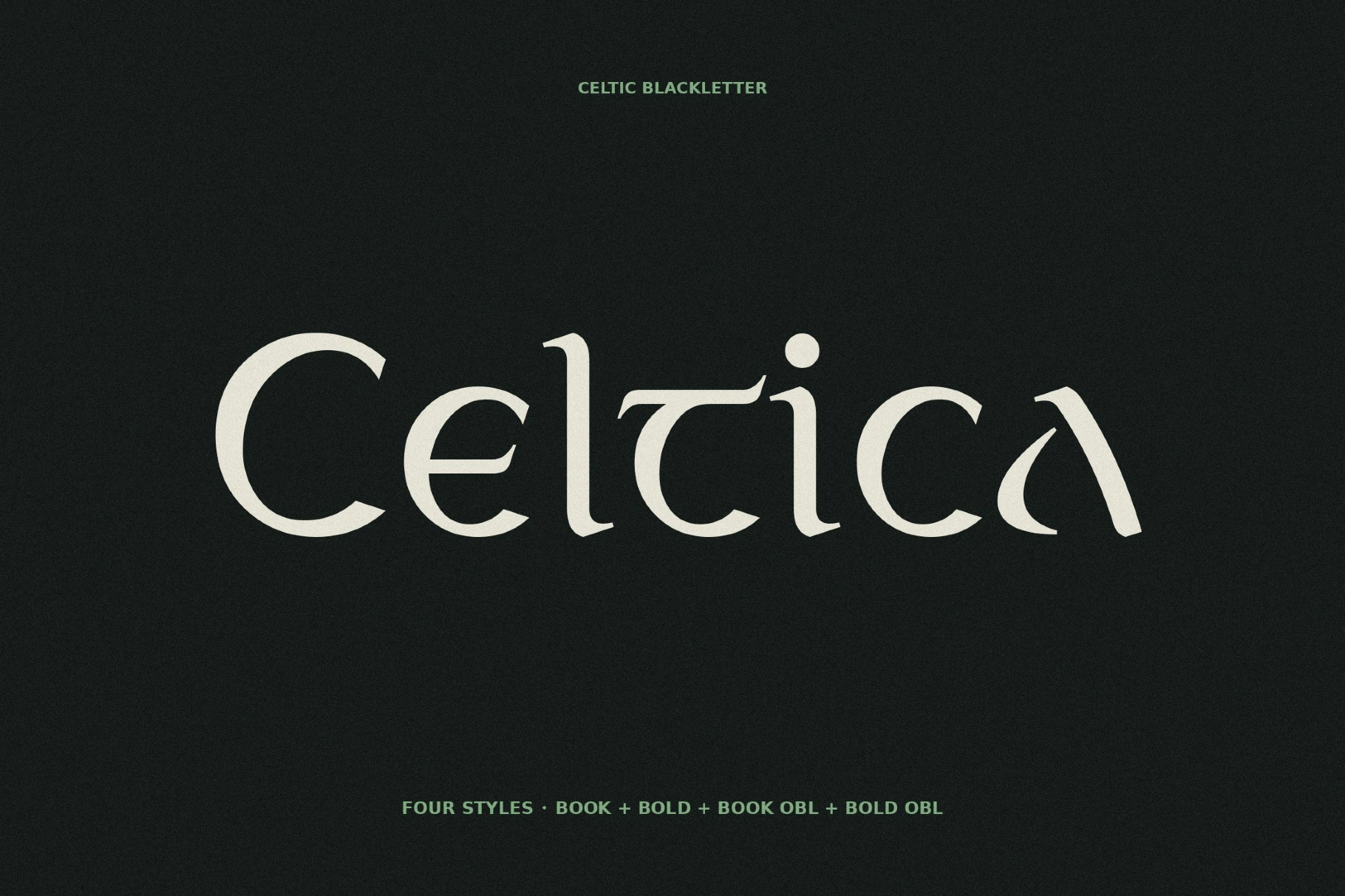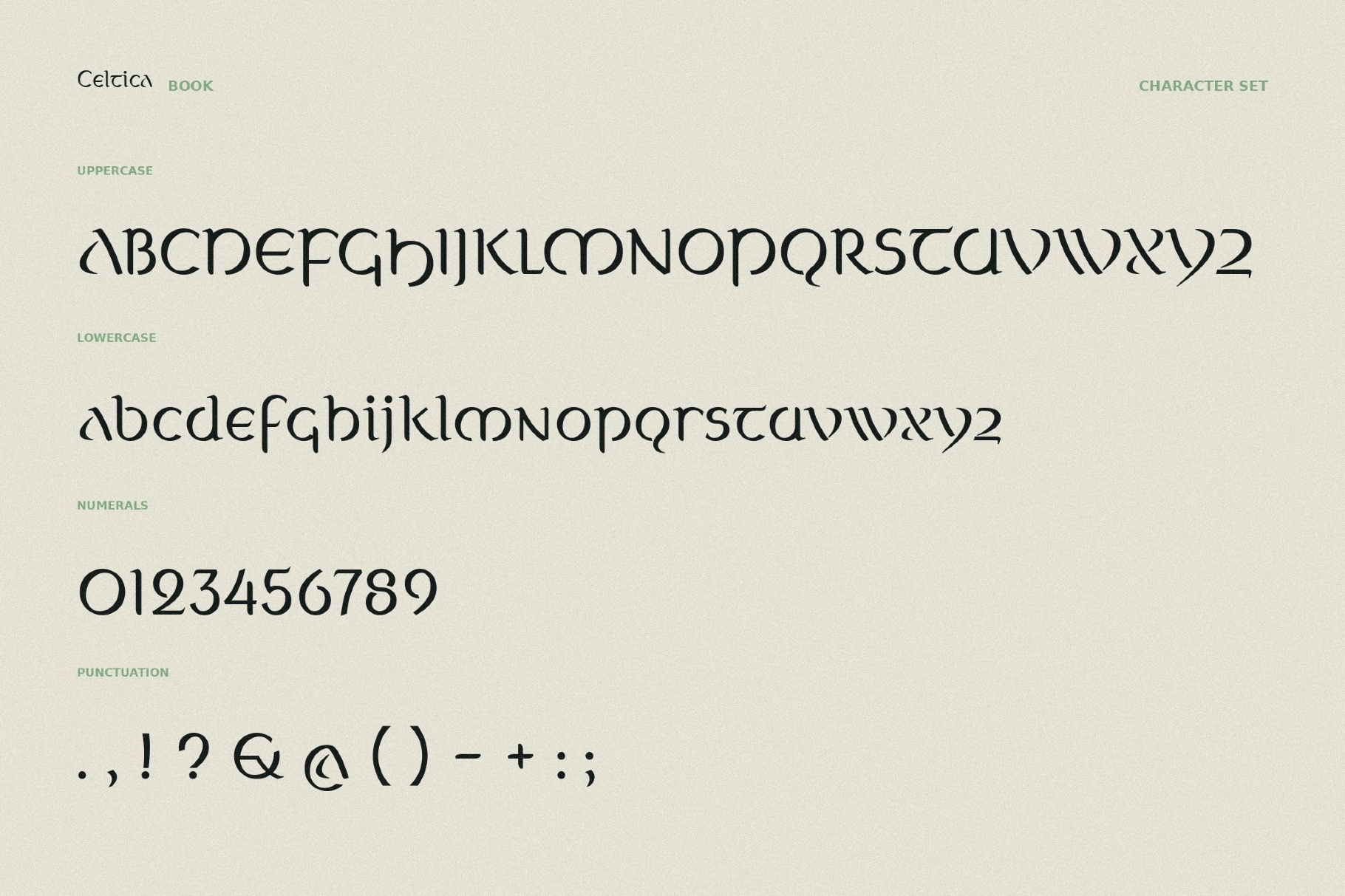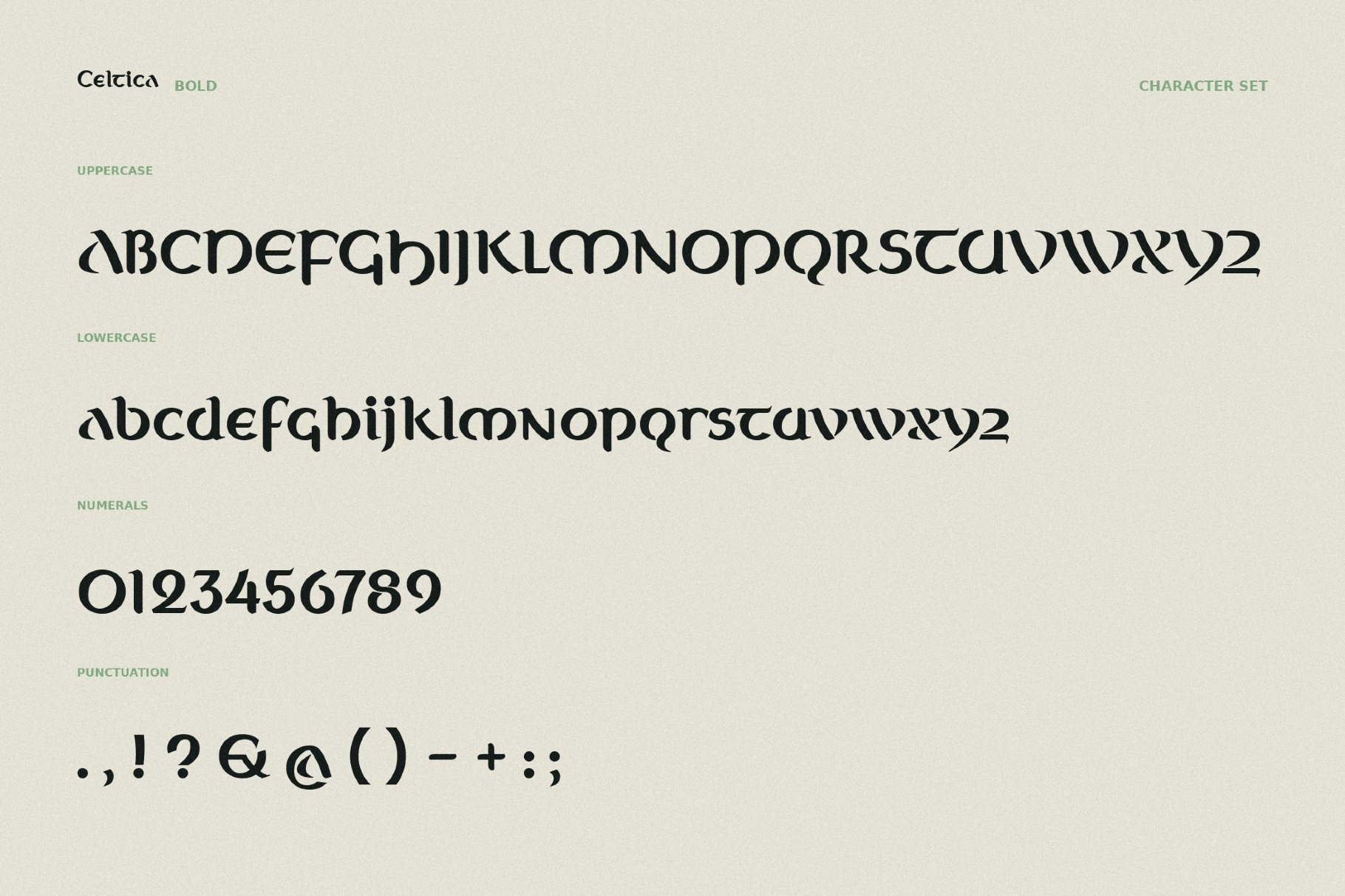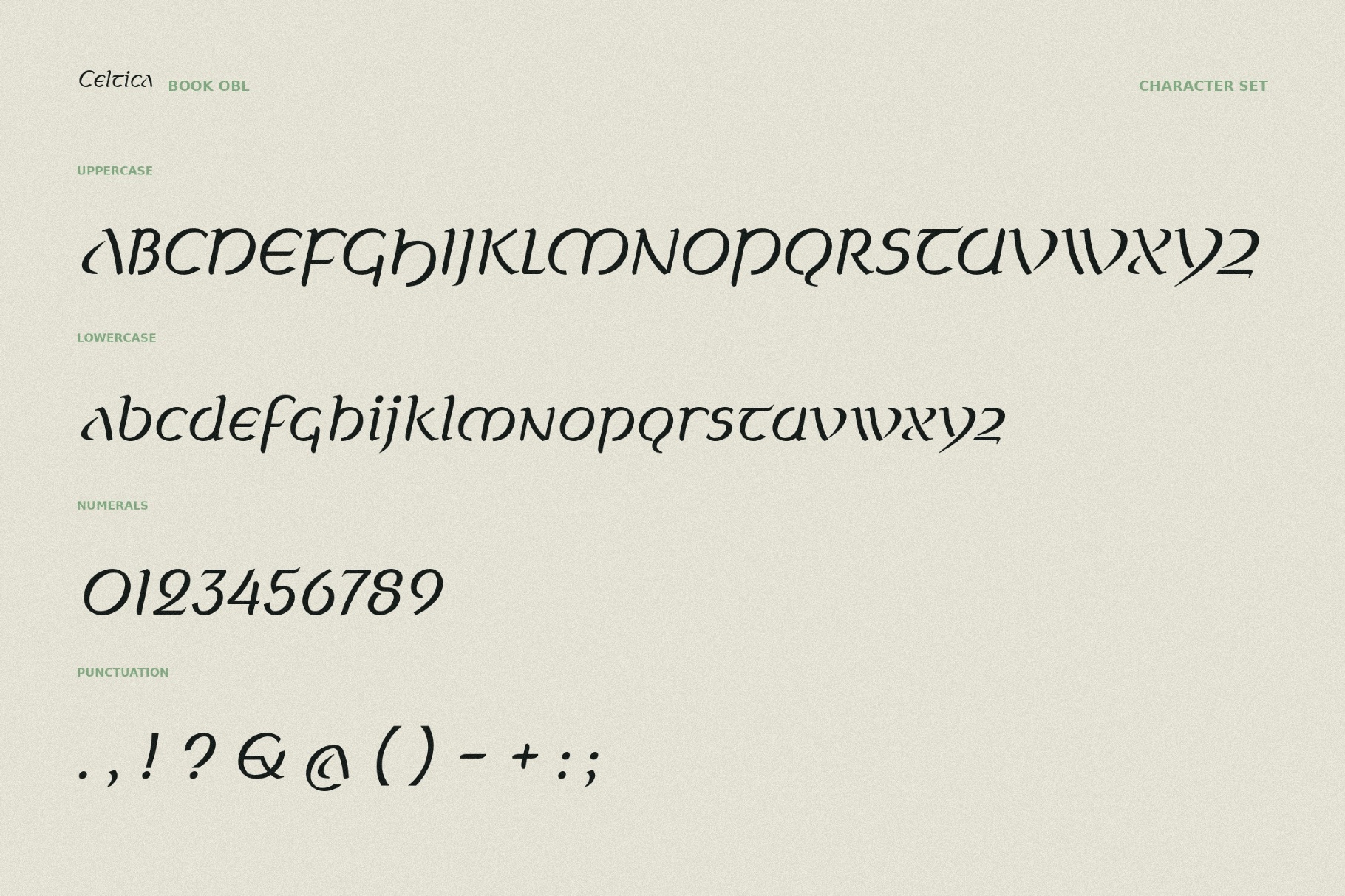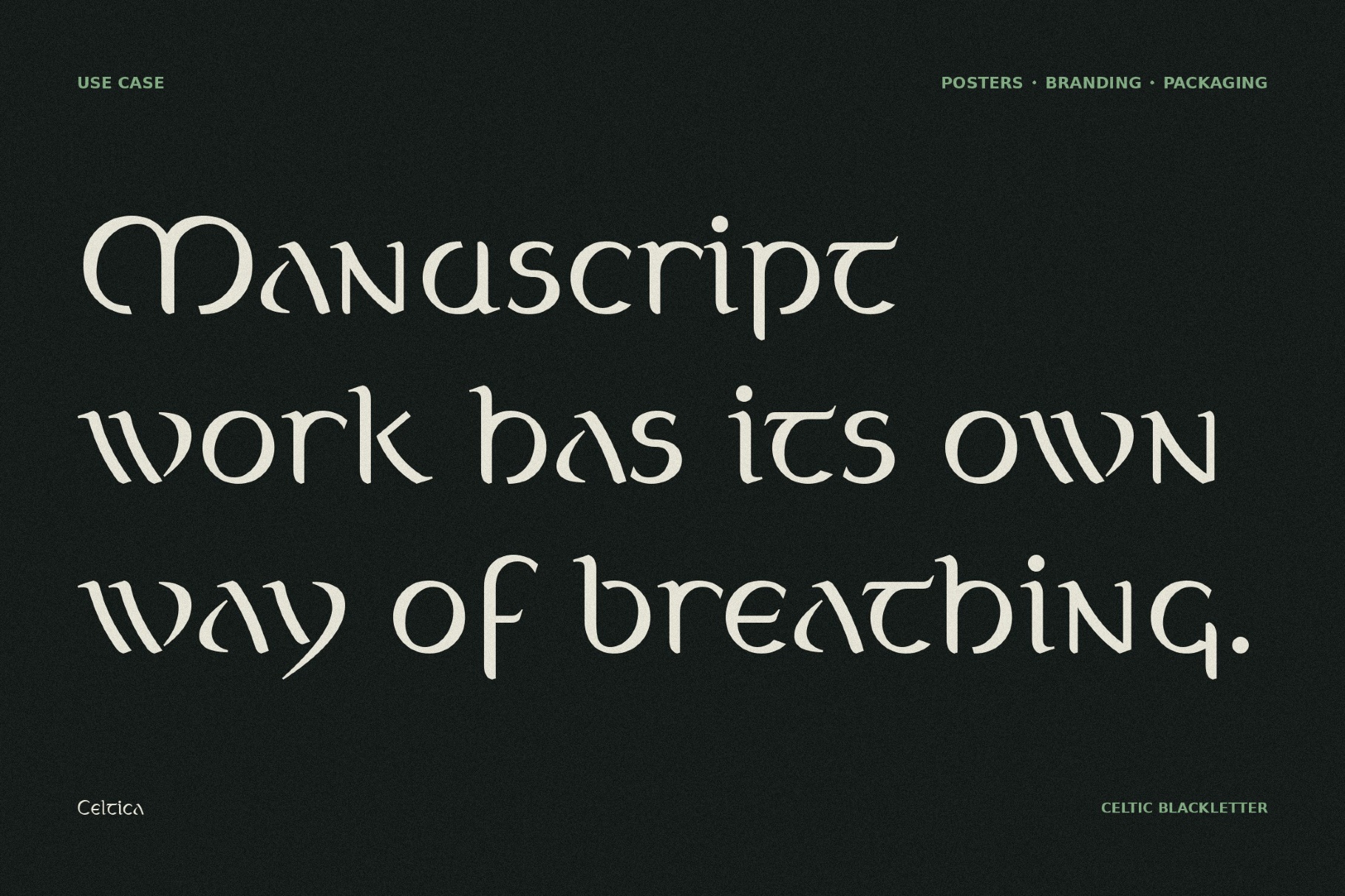
Celtica - Fantasy Font Family
Celtica looks closer to a carved initial from a manuscript margin than a simple decorative display font. Its capitals feature ornamental curves, knotwork-like motifs, and a ceremonial density that makes every word seem almost engraved. There’s a strong Celtic reference in the rhythm of the shapes, but the appeal is broader: fantasy-saga covers, RPG title screens, museum posters, heritage-identity systems, brewery packaging, folk-festival graphics, heraldic layouts, and event invitations.